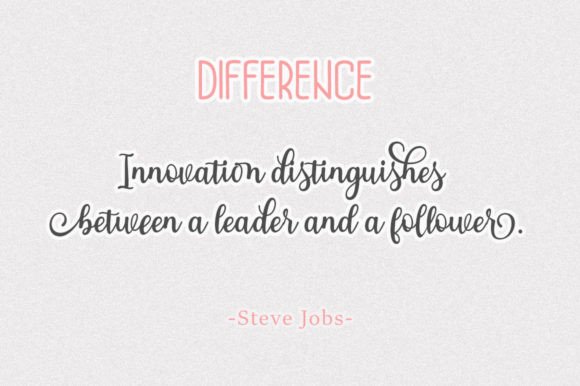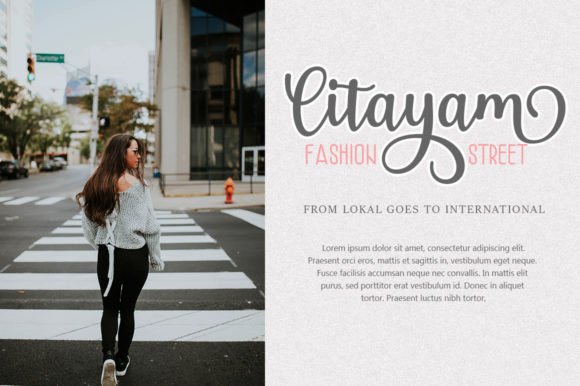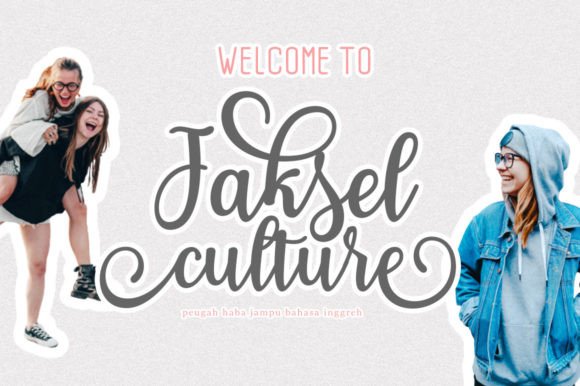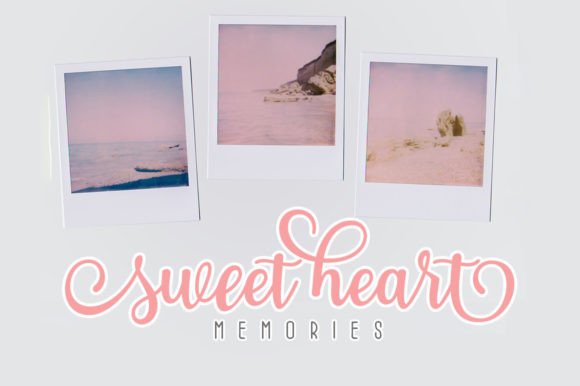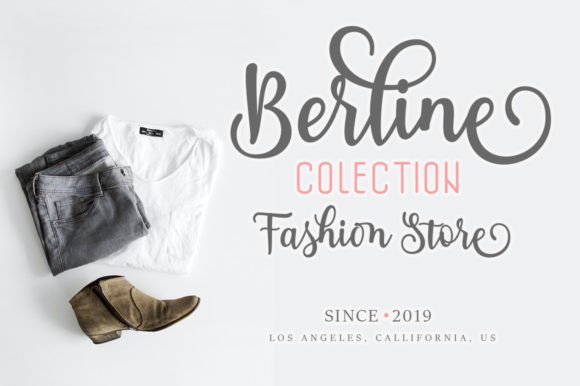
About Shine Nature Font
Shine Nature, like the sweet fragrance of flowers, is a font that exudes beauty and flawlessness, just like you! It’s the perfect choice for creating a minimal yet beautiful aesthetic for your website, social media branding, Pinterest banners, printed invitations, and more. Much like a delightful fragrance, Shine Nature font has the power to speak to the heart of your audience, clients, guests, and everyone around you.
The charm of Shine Nature lies in its simplicity and elegance. The font is designed to be visually appealing without overwhelming the senses. Its minimalistic style adds a touch of sophistication to your designs, creating a harmonious and tranquil visual experience. Whether you’re working on a website, social media graphics, or printed materials, Shine Nature adds a layer of beauty that resonates with a natural and effortless grace.
Shine Nature is not just a font; it’s a sensory experience. Like the fragrance of flowers, it communicates with subtlety and leaves a lasting impression. The font’s flawless design reflects a sense of refinement, making it an ideal choice for projects where you want to convey a sophisticated and graceful image.
For a website that speaks volumes with simplicity, Shine Nature is the perfect companion. Its clean lines and balanced proportions make it easy on the eyes, creating a pleasant and inviting digital space. Social media branding, Pinterest banners, and printed invitations all benefit from the font’s ability to add an element of timeless beauty.
Just like a fragrance that lingers in the air, Shine Nature font lingers in the memory of those who encounter it. Its impact goes beyond the visual, resonating with the emotions and creating a connection with your audience. Whether you’re designing for personal or professional use, Shine Nature adds a touch of natural elegance that captivates and delights.
So, let Shine Nature be the font that speaks to the heart and senses. Allow it to infuse your designs with the beauty of flowers and the simplicity of nature. As you engage with your audience, clients, and guests, let Shine Nature create an atmosphere of grace and charm that leaves a lasting impression.